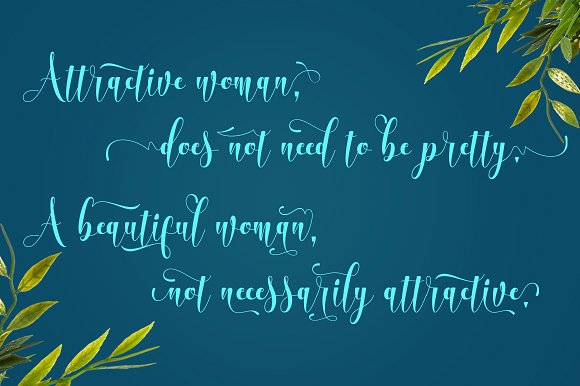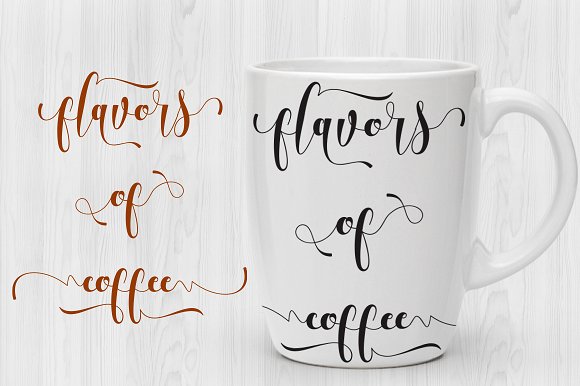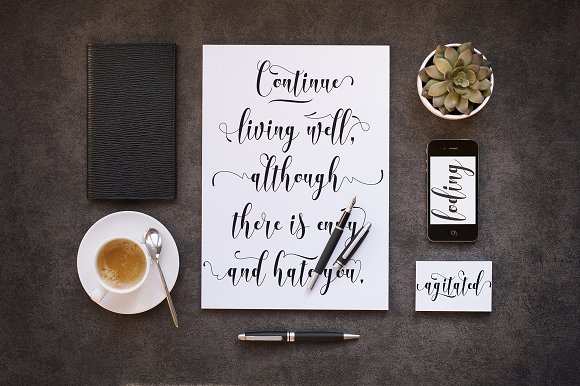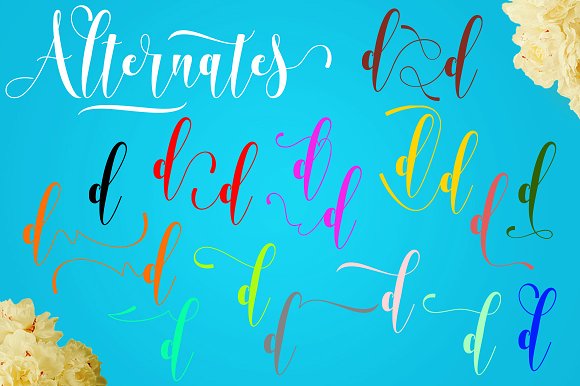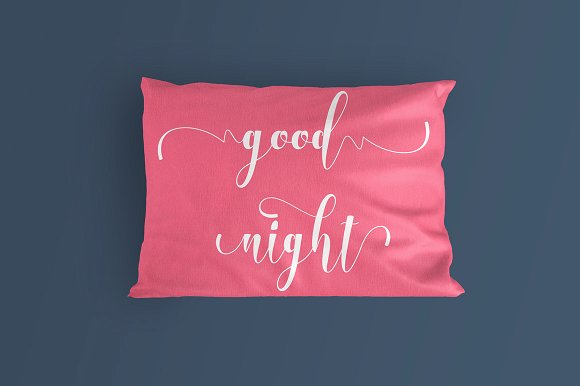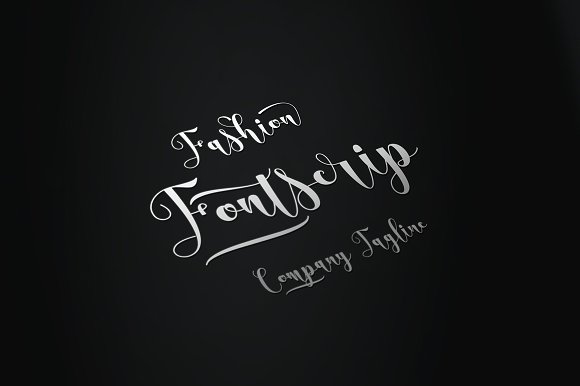
Discover the Elegance of Advantage Font: A Modern Calligraphy-Style Marvel
In the realm of typography, fonts play a pivotal role in conveying messages, evoking emotions, and enhancing the aesthetic appeal of any design project. Among the myriad of fonts available to designers and crafters, the Advantage font stands out as a modern calligraphy-style masterpiece that brings a touch of elegance and sophistication to any creative endeavor. In this comprehensive guide, we’ll explore the numerous advantages of using the Advantage font, its unique characteristics, and why it has become a go-to choice for professionals in the design and crafting industries.
What is Advantage Font?
Advantage is a modern calligraphy-style font that embodies the perfect blend of traditional calligraphy and contemporary design elements. Its fluid strokes, elegant ligatures, and distinctive letterforms make it an ideal choice for projects that demand a high level of sophistication and refinement. Whether you’re working on a branding project, crafting beautiful wedding invitations, or designing eye-catching posters, the Advantage font is sure to leave a lasting impression.
Unique Characteristics of Advantage Font
So, what sets the Advantage font apart from other calligraphy-style fonts? Here are some of its unique characteristics:
- Fluid Strokes: The Advantage font features fluid strokes that give it a natural, hand-written feel. This makes it perfect for projects that require a personal touch.
- Elegant Ligatures: The font comes with a range of elegant ligatures that add a touch of sophistication to any design project.
- Distinctive Letterforms: Each letterform in the Advantage font is carefully crafted to ensure that it stands out from the rest. This makes it ideal for headlines, titles, and other design elements that require a high level of visual impact.
Advantages of Using Advantage Font
Now that we’ve explored the unique characteristics of the Advantage font, let’s dive into its advantages. Here are some reasons why designers and crafters love using this modern calligraphy-style font:
- Versatility: The Advantage font is incredibly versatile, making it suitable for a wide range of design projects, from branding and advertising to crafting and DIY projects.
- Elegance: The font’s elegant strokes, ligatures, and letterforms add a touch of sophistication to any design project, making it perfect for high-end brands and luxury products.
- Readability: Despite its ornate nature, the Advantage font is highly readable, even at small sizes. This makes it ideal for body text, captions, and other design elements that require a high level of legibility.
- Customizability: The Advantage font comes with a range of customization options, allowing designers to tailor it to their specific needs.
Best Use Cases for Advantage Font
So, what are the best use cases for the Advantage font? Here are some ideas to get you started:
- Branding and Advertising: Use the Advantage font to create stunning brand identities, logos, and advertising campaigns that demand attention.
- Wedding Invitations and Stationery: Add a touch of elegance to your wedding invitations, stationery, and other paper crafts with the Advantage font.
- Posters and Flyers: Create eye-catching posters and flyers that showcase your creativity and style with the Advantage font.
- Packaging Design: Use the Advantage font to create beautiful packaging designs that stand out on store shelves.
| Font Name | Advantages Font |
| Author | Jhoen Studio |
In conclusion, the Advantage font is a modern calligraphy-style marvel that offers a range of benefits to designers and crafters. Its unique characteristics, versatility, elegance, readability, and customizability make it an ideal choice for a wide range of design projects. Whether you’re working on a branding project, crafting beautiful wedding invitations, or designing eye-catching posters, the Advantage font is sure to elevate your creative endeavors to new heights.